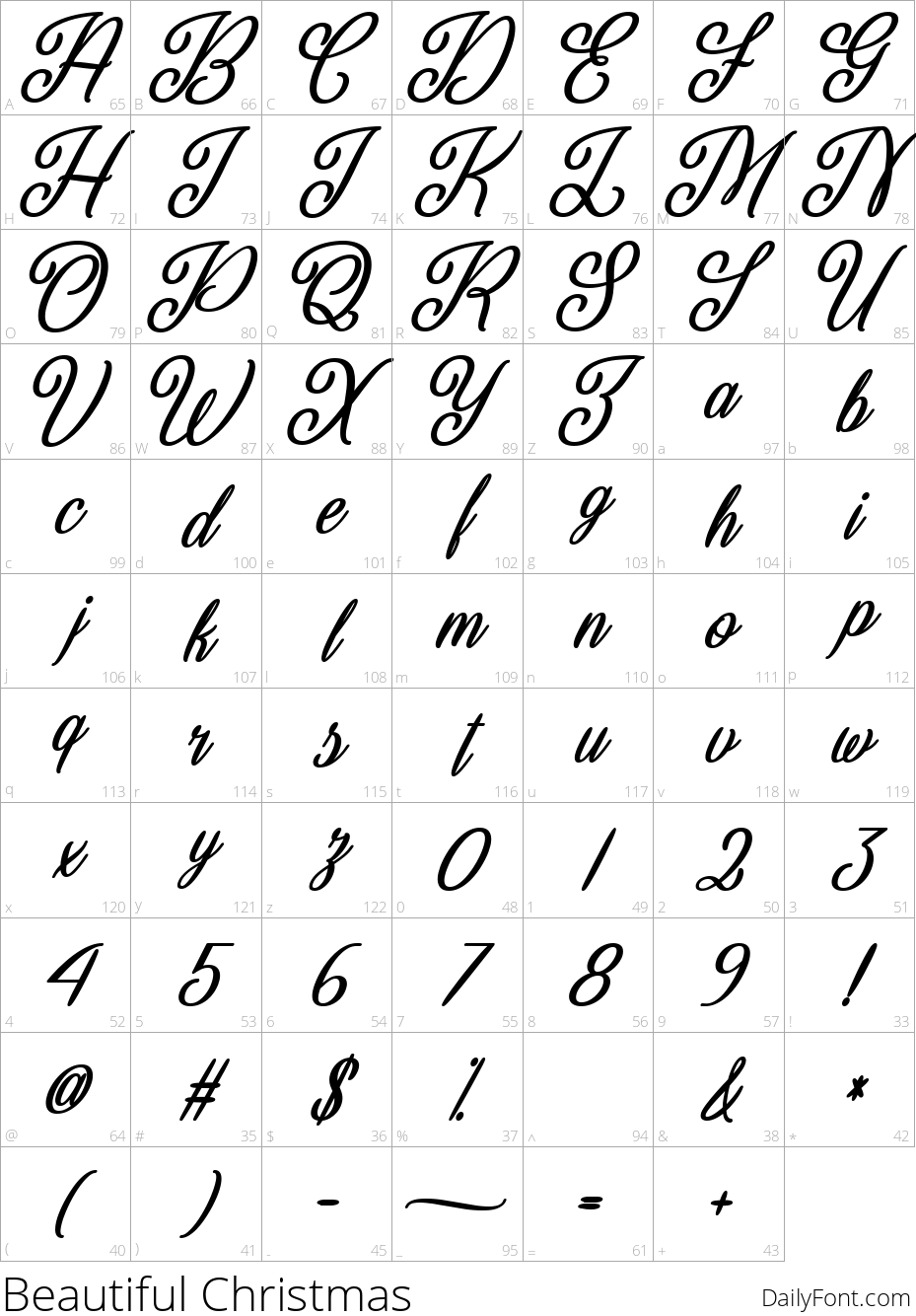
Beautiful Christmas
Discover elegant calligraphy fonts with festive flair perfect for winter designs!
Are you looking for a beautiful font to add a touch of sophistication to your holiday projects? Look no further than elegant, slanted calligraphy fonts that evoke the magic of the season. With delicate strokes and flourishes, these fonts capture the essence of Christmas, Hanukkah, or any other winter celebration.
These festive fonts are perfect for creating stunning greeting cards, invitations, and holiday-themed designs. Their graceful curves add a sense of elegance, while their playful flair injects joy and warmth into your projects. Whether you're designing a special gift, website, or social media campaign, these beautiful fonts will bring the spirit of the season to life.